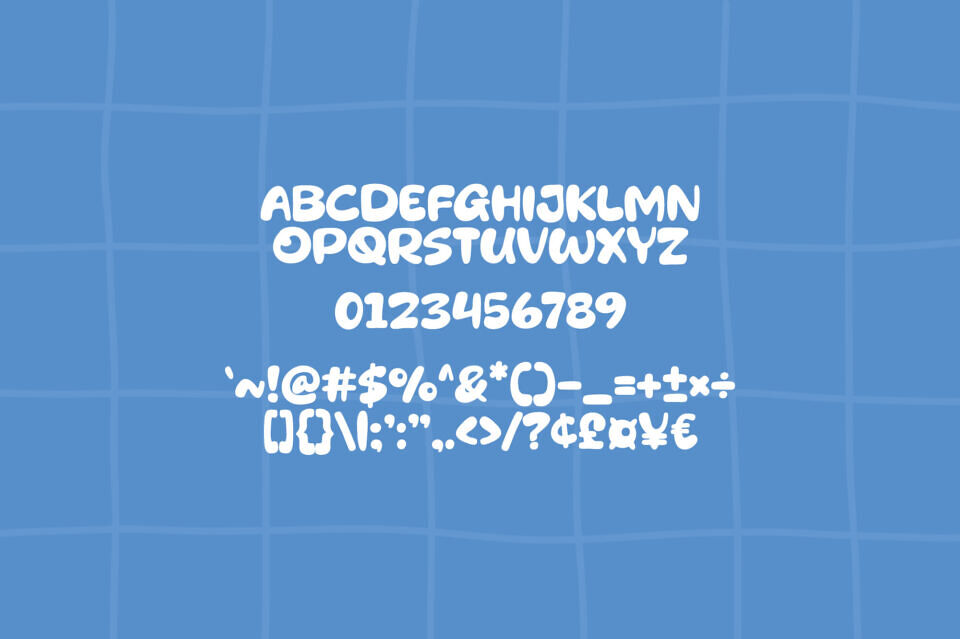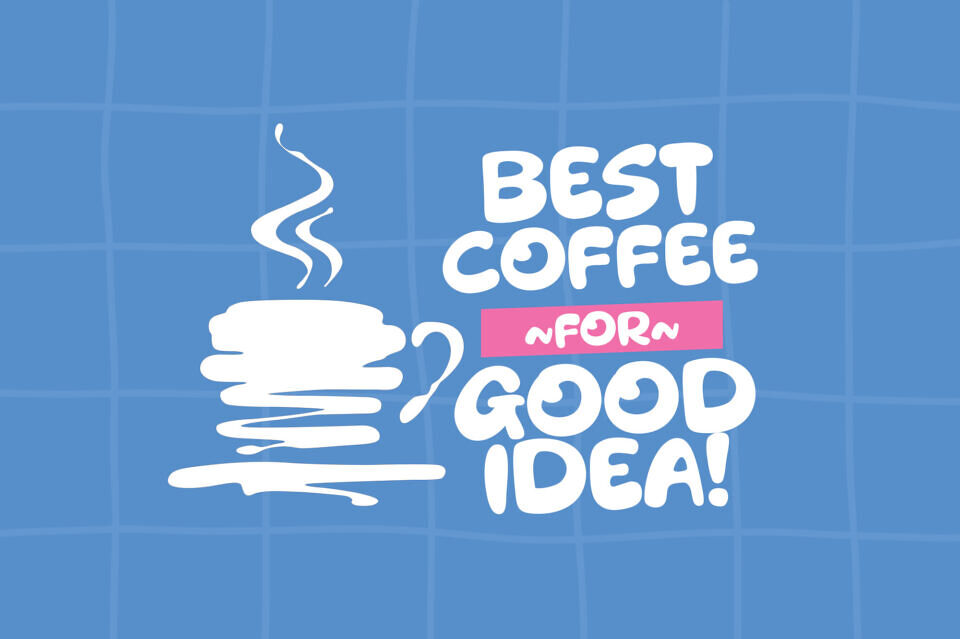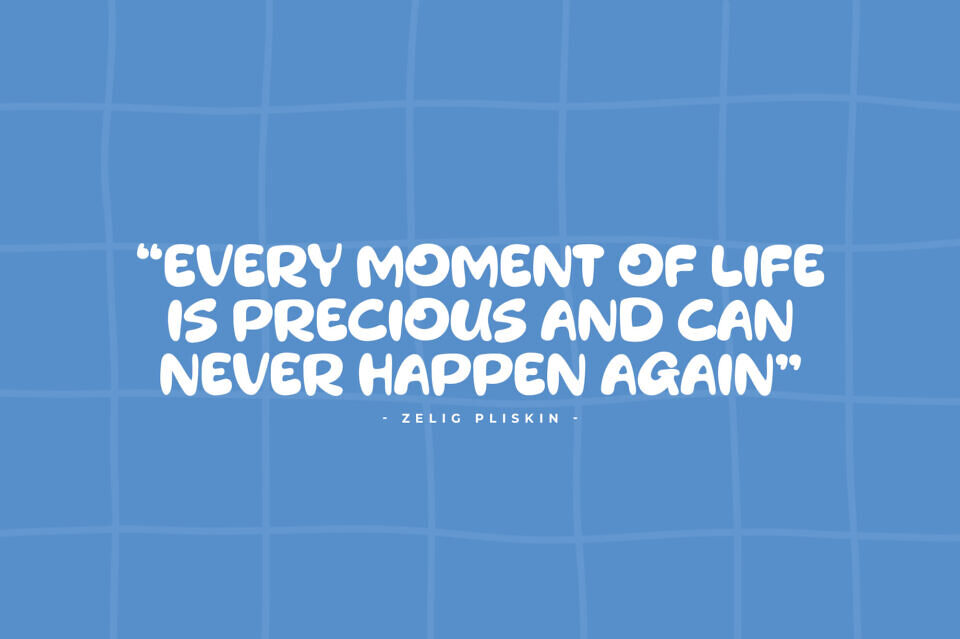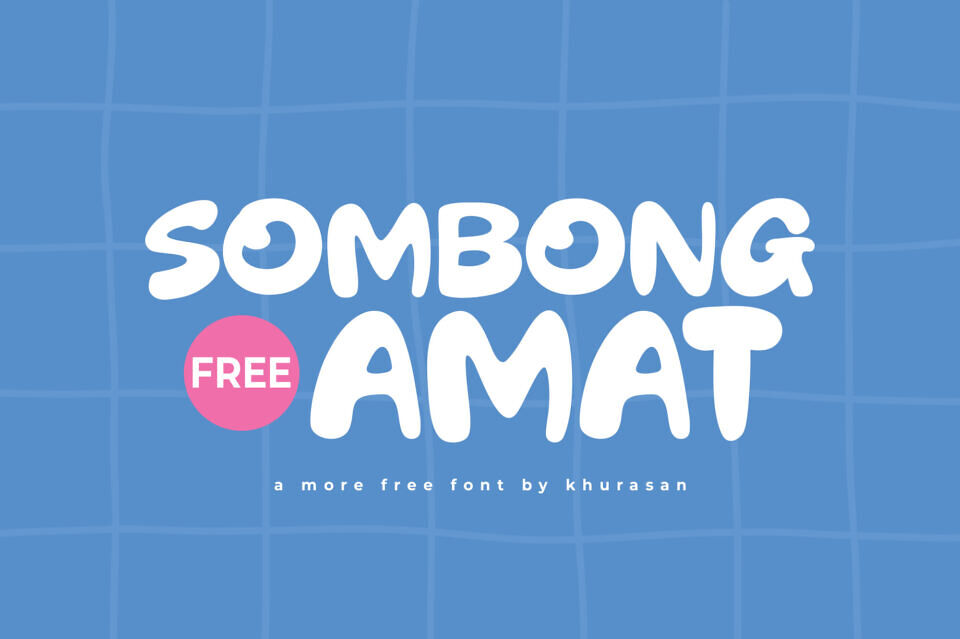
Sombong Amat Font
Sombong Amat is a modern and cute display font perfect for posters, logos, magazines, book covers, banners, and many more! Get this amazing font, and use it to create lovely designs.